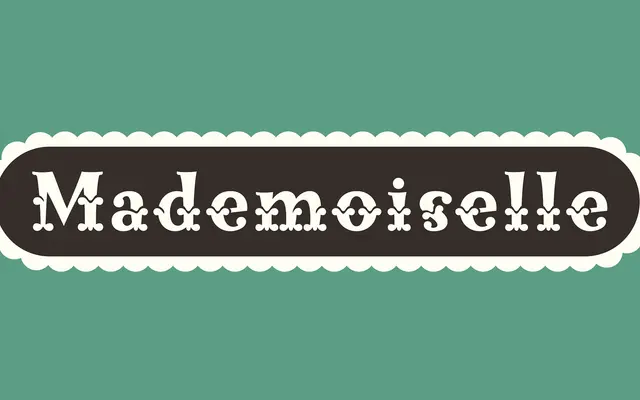
Mademoiselle
A Tuscan wood type revival with a distinctly playful character, drawing on Wild West poster lettering traditions.
Sitting within the Tuscan display tradition, this family takes its cues from 19th-century wood type and the ornamental lettering of American Wild West poster design. The bifurcated, cupped serifs typical of the style are rendered with a lightness that sets it apart from more rugged revivals. Suited to packaging, branding and editorial work where decorative warmth is the priority.
A decorative Tuscan display typeface in the Wood Type / Wild West tradition, characterised by the bifurcated serifs and ornamental detail typical of 19th-century poster lettering.